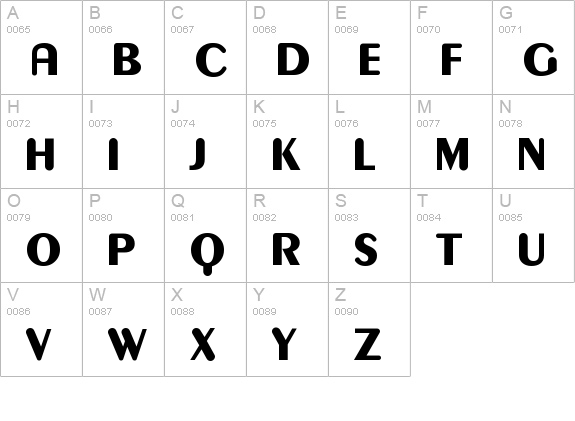
Gilgongo is a versatile and stylish font that is sure to make a statement in any design project. With its unique blend of modern and classic elements, Gilgongo brings a touch of sophistication and creativity to your work. This font features a sleek and elegant design that is perfect for both headers and body text. Whether you're designing a website, creating a logo, or working on a print project, Gilgongo is the perfect choice to add a touch of elegance and sophistication. The best part about Gilgongo font is that it is free to download at FontsMarket.com. This means you can easily access this beautiful font without any cost, making it a great choice for designers on a budget. So don't wait any longer - download Gilgongo font today and elevate your design projects to the next level!